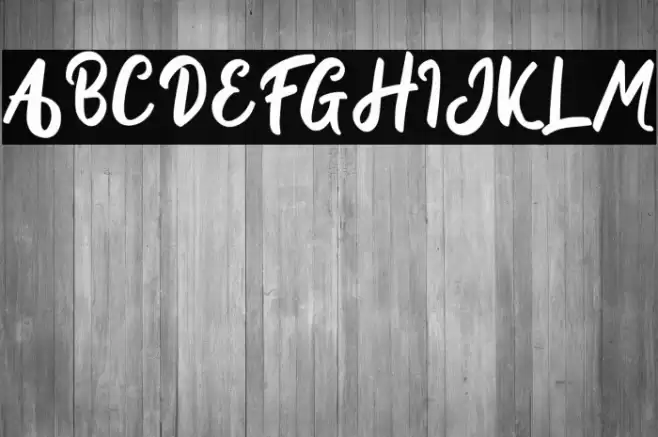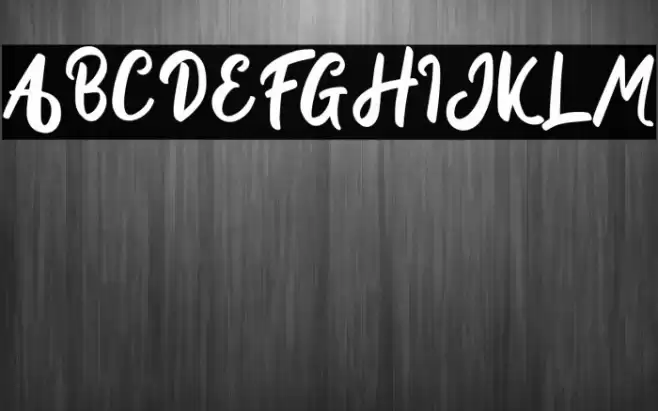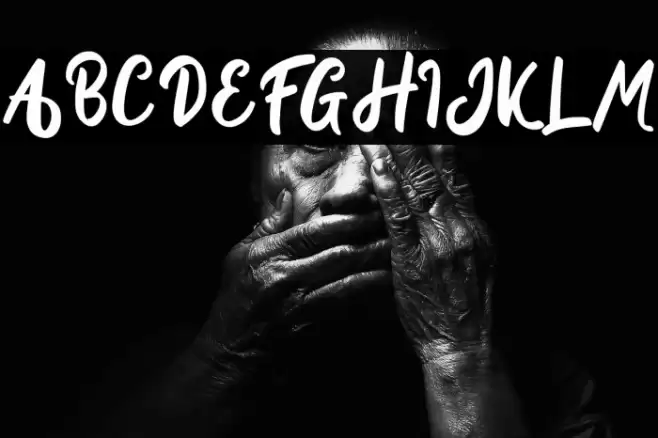
DelichFREE Font
DelichFREE Description
This font features a bold and expressive handwritten style, characterized by its fluid and dynamic strokes. The uppercase letters are slightly more structured, while the lowercase letters exhibit a more casual and flowing appearance. The overall look is playful and energetic, making it suitable for creative and informal designs. The thick strokes and varying line widths add a sense of movement and personality, making it stand out in any project.
A bold, expressive handwritten font with dynamic strokes from Uncategorized fonts.
- Proposed Projects: Ideal for greeting cards, posters, branding, and social media graphics.